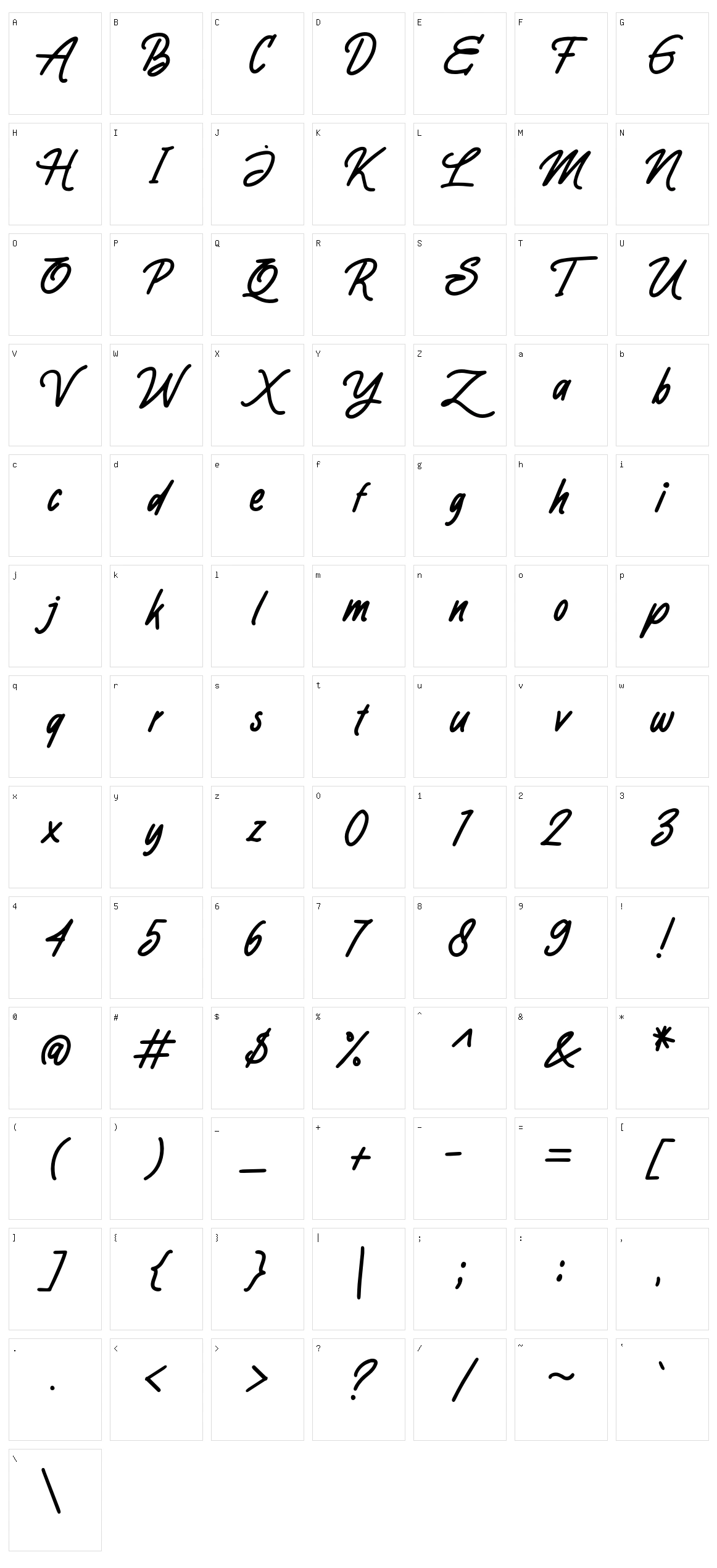
The free font Point Smile is carefully designed by Letterhend Studio, showcasing a thoughtful balance of creativity and usability and falls under the Script font style. When you download the ZIP file, it contains only 2186.11 KB of font files, making it lightweight and quick to download. Please review the license details below to understand permitted usage and distribution rights. If license information is not available, we recommend using this font for personal projects only or contacting the author directly for commercial usage permissions.